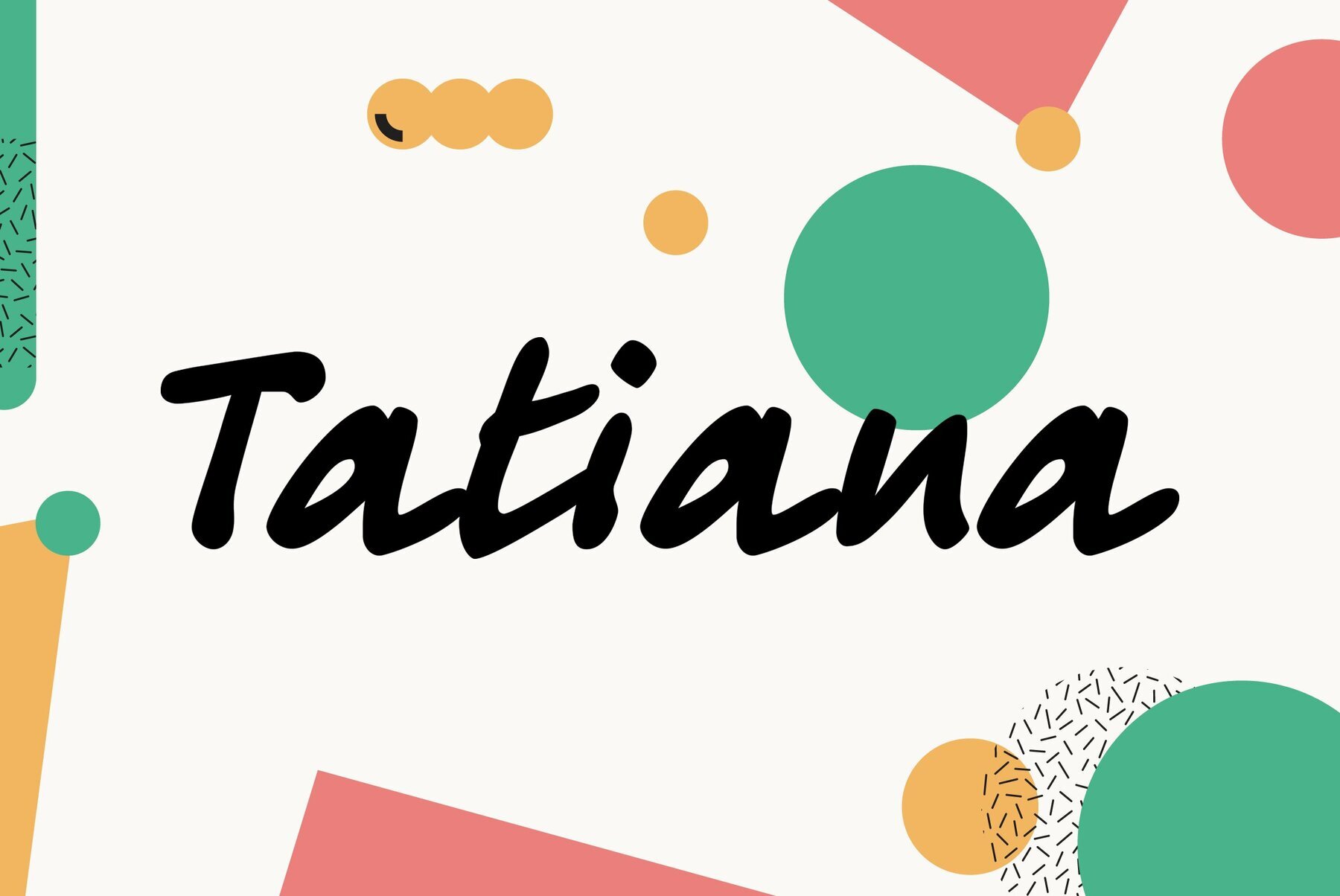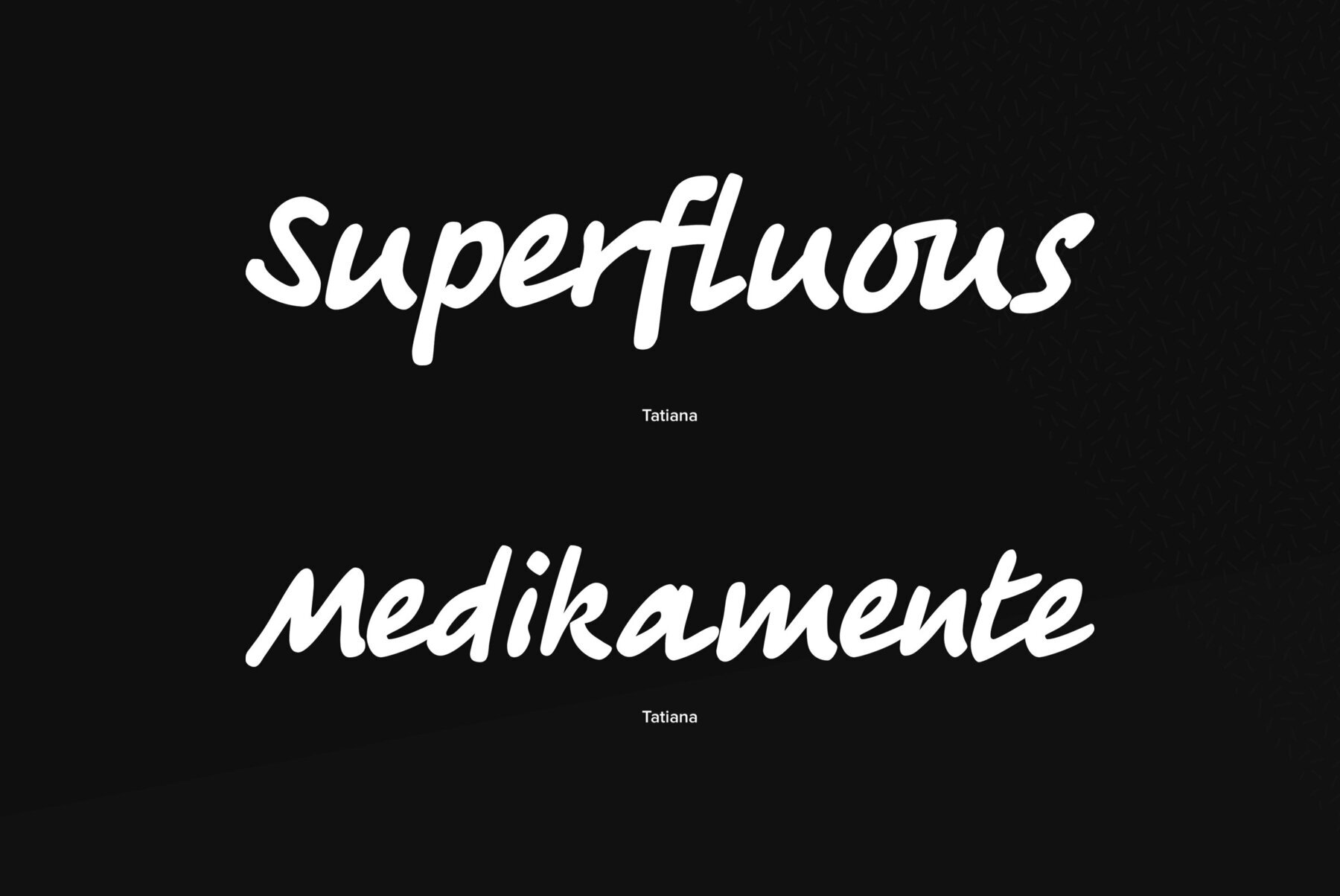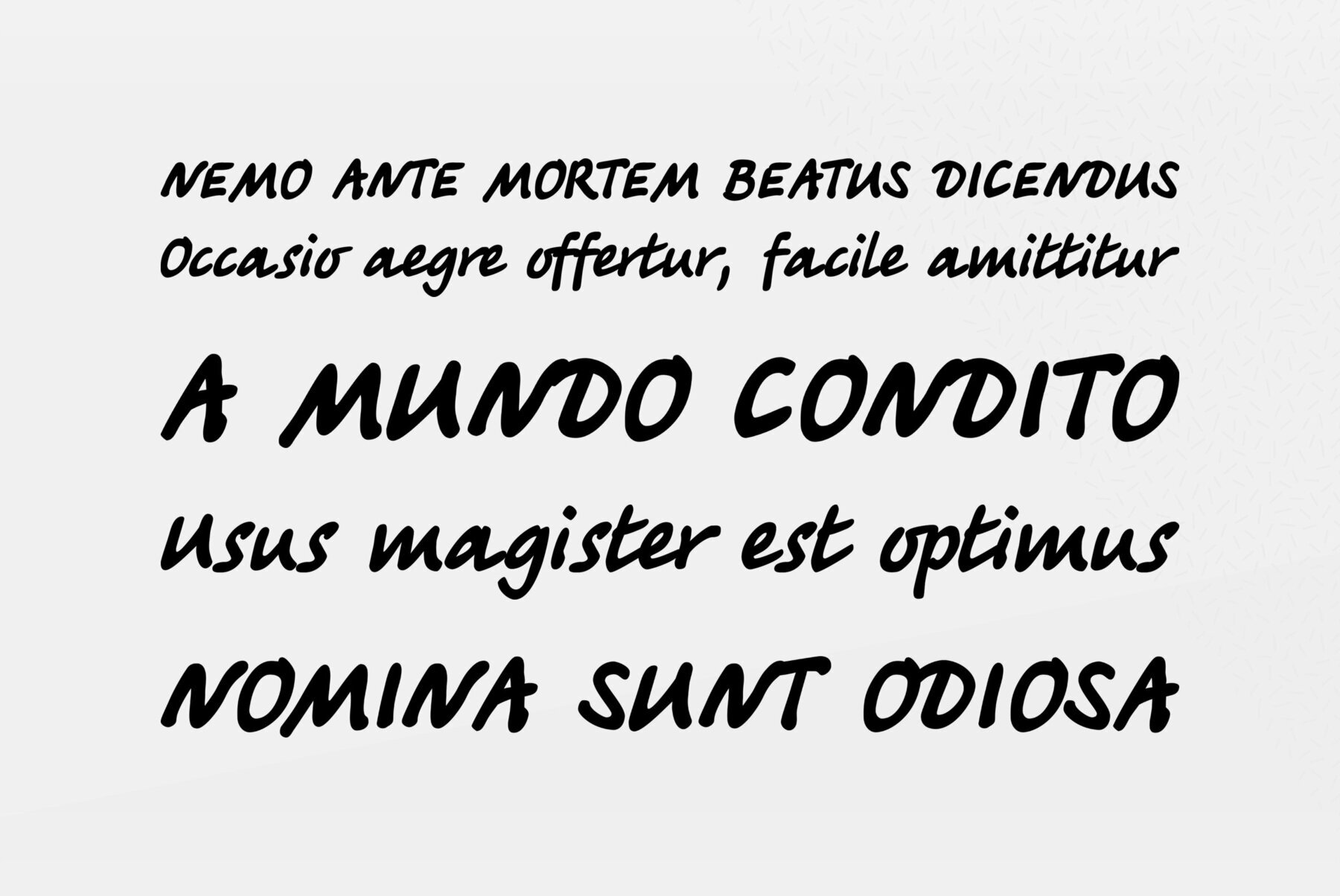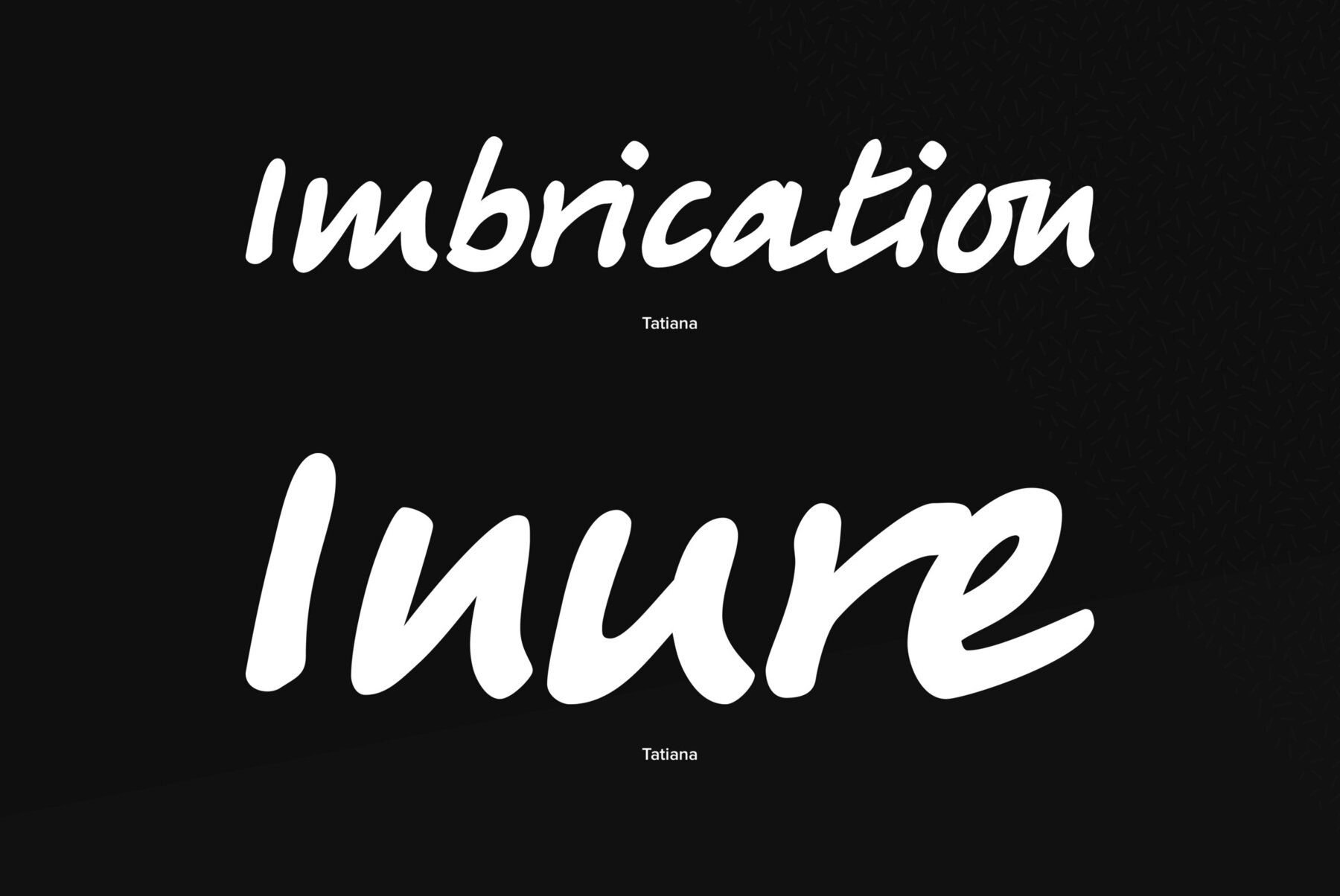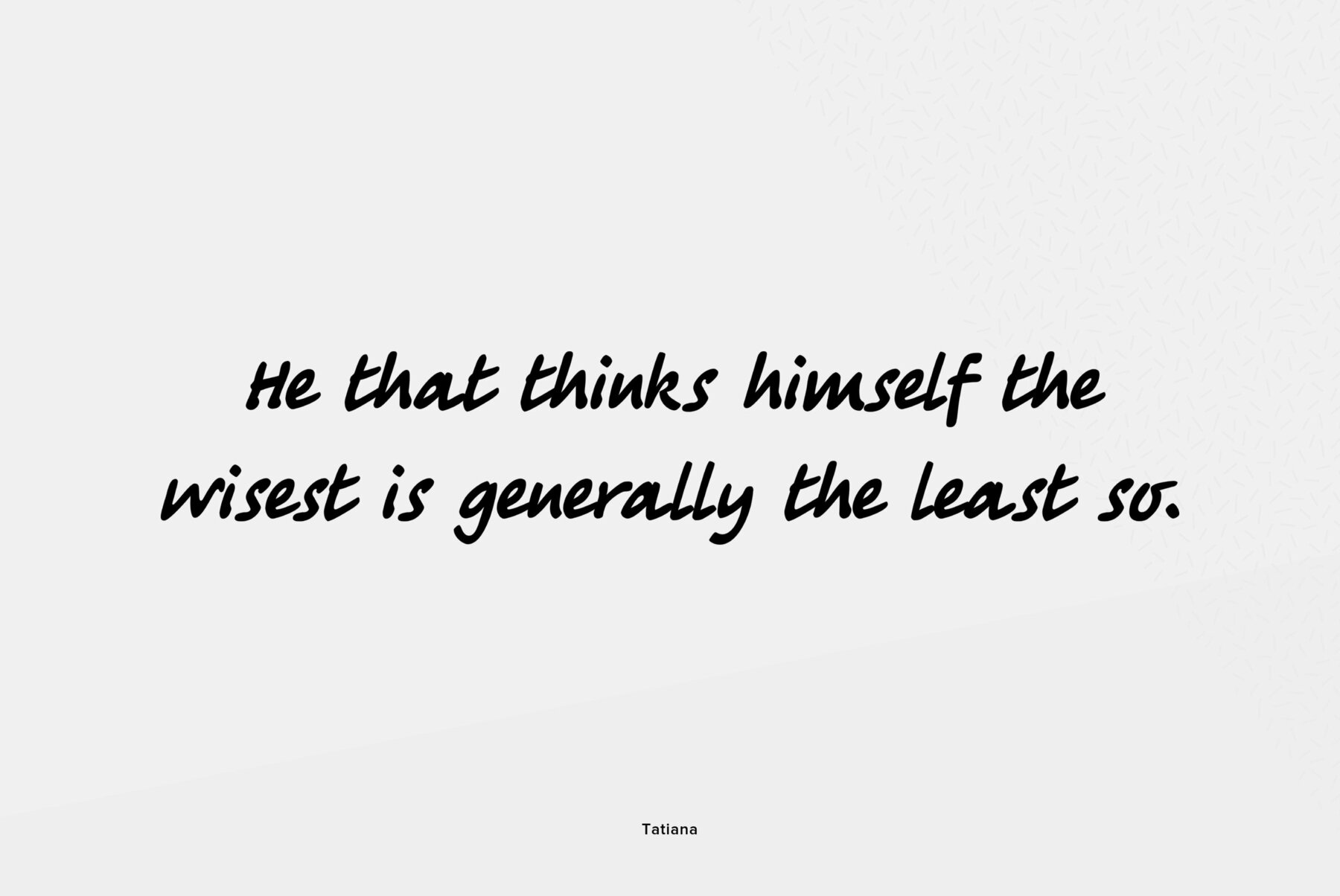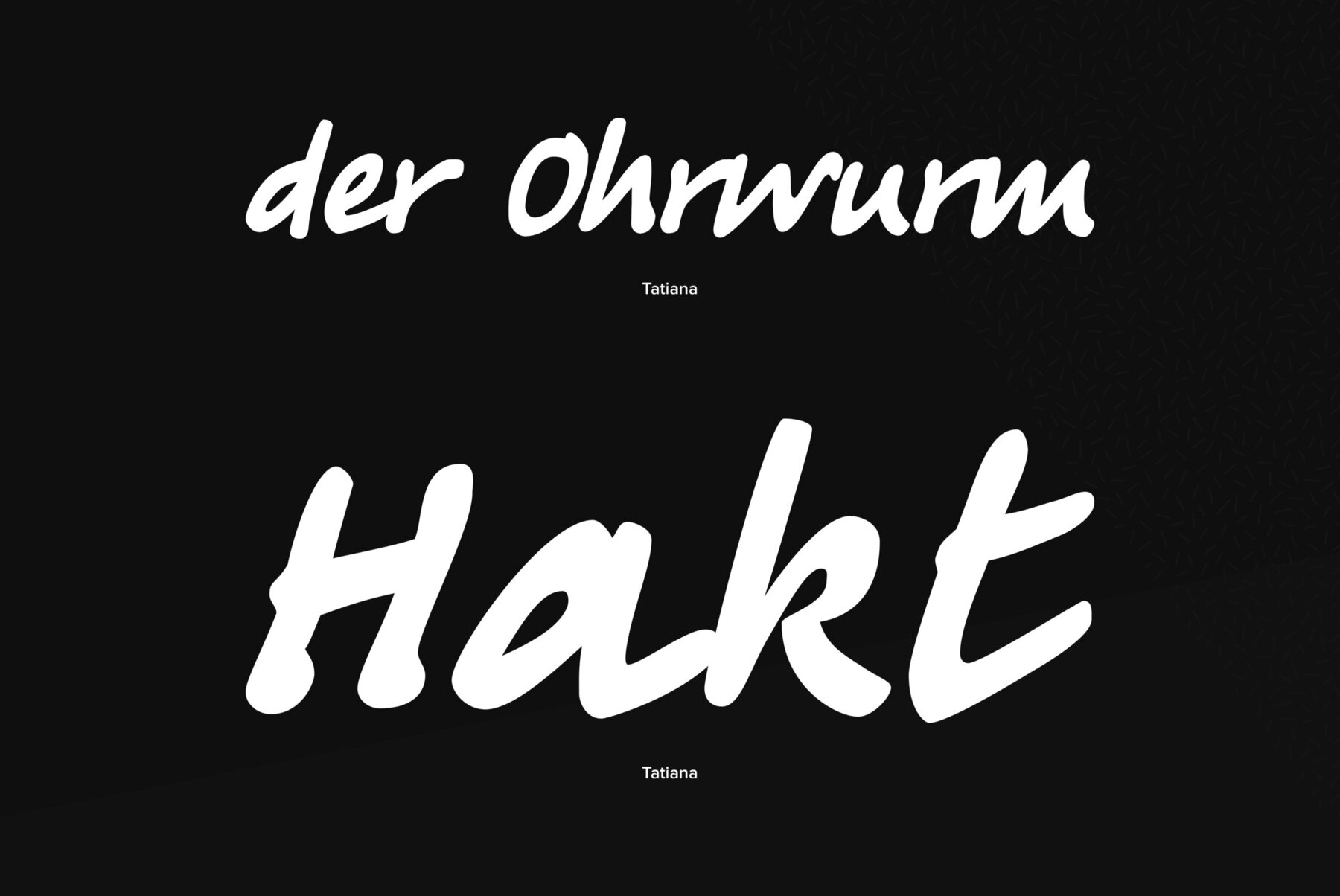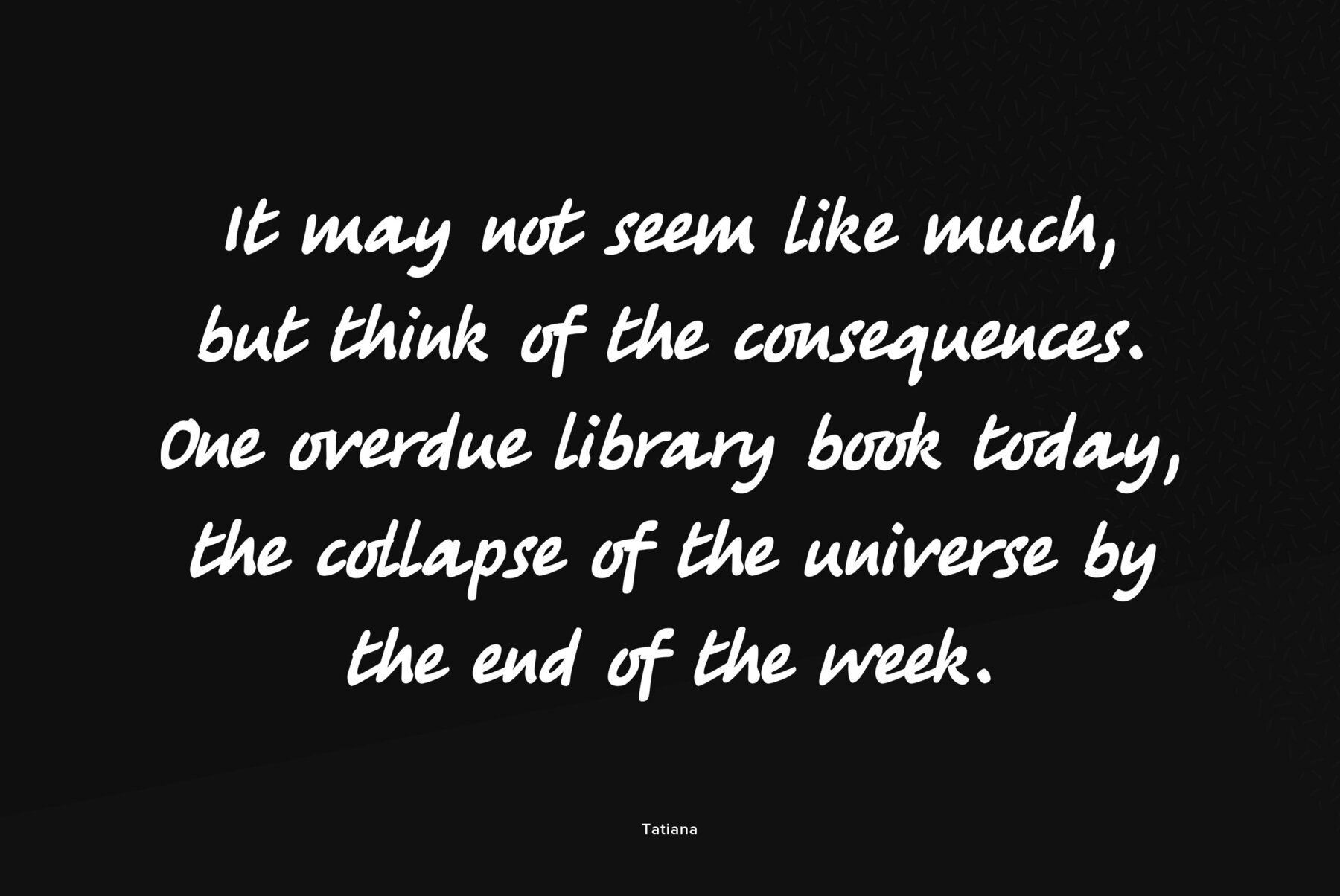
Designed at ParaType (ParaGraph) in 1995 by Tagir Safayev. Based on informal pen handwriting. A set of Western and Central European characters was added in 2011 by Gennady Fridman. For use in advertising and display typography.